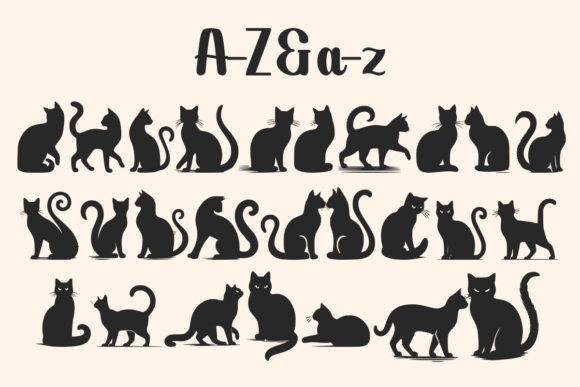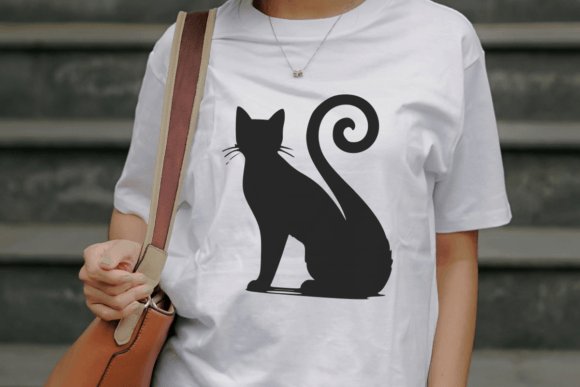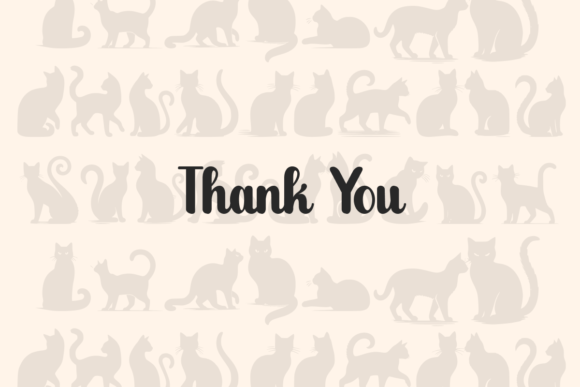
Get Ready to Purr-fect Your Designs with Catty Font
Have you ever been brainstorming ideas for a project, only to have a burst of inspiration strike when you’re browsing through a quirky online marketplace or browsing through a craft store? That’s exactly what happened to us when we stumbled upon the adorable Catty Font. This cool dingbat font is packed with glyph illustrations of cat silhouettes, making it the purr-fect addition to any creative project.
Catty Font is a versatile tool that’s suitable for a wide range of applications, from stickers and decorations to journals, logos, and greeting cards. Its value lies in its ability to add a touch of whimsy and personality to any design. Whether you’re a seasoned designer or a crafty enthusiast, Catty Font is a valuable asset that’s sure to bring a smile to your face and a spark to your creativity.
• Unique Characteristics: Catty Font features a unique blend of modern and playful design elements, making it suitable for a wide range of digital applications, from branding and advertising to user interface design.
Catty Font Review
Overall, I’m impressed with Catty Font’s unique style. The ✨ bold and playful lines give it a fun, eye-catching feel that’s perfect for creative projects. The font is highly customizable, allowing designers to adjust the weight, width, and other settings to suit their needs.
• ✨ Unique and playful style, great for creative projects
• Highly customizable, with options for adjusting weight, width, and more
• Works well in both digital and print applications
• Supports a wide range of languages
However, there are a few limitations to consider.
• ⚠️ May not be suitable for formal or professional projects
• ⚠️ Some users may find the font too playful or distracting
• ⚠️ Limited support for some languages, although this is improving
Overall, I think Catty Font is a great choice for designers looking for a unique and playful font. While it may not be suitable for all projects, it’s a great addition to any designer’s toolkit.
Use the Catty Font to add a playful and whimsical touch to your designs. Experiment with different font sizes, colors, and styles to create a unique look. Consider pairing the Catty Font with other playful fonts or graphics for added visual interest.
The Catty Font is perfect for:
• Designing social media graphics and posts.
• Creating invitations and event materials.
• Developing brand identities and logos.
• Adding a playful touch to educational materials and presentations.